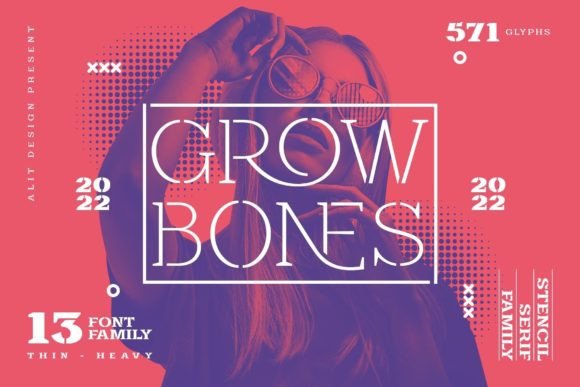
Ignite your designs with Grow Bones, the ultimate sport display stencil font, meticulously crafted by Alit Design. This captivating serif typeface embodies energy, dynamism, and a hint of rebellion. Its unique, irregular shapes dance across the page, demanding attention and leaving an indelible mark on your creative projects.
Picture the impact of Grow Bones in your sports-themed designs, where the bold strokes and edgy aesthetic add an adrenaline rush to every word. Create posters that energize, logos that electrify, and branding that resonates with a youthful, adventurous spirit. Harness the power of Grow Bones to elevate your designs to new heights, capturing the essence of movement and competition.
Beyond the realm of sports, Grow Bones shines as a versatile performer in a wide spectrum of creative endeavors. Its strong, modern style lends itself seamlessly to contemporary branding projects, where a bold statement is paramount. Employ Grow Bones to craft striking headlines, captivating social media posts, or eye-catching packaging that exudes confidence and sophistication.
The beauty of Grow Bones lies in its adaptability. Whether you're a seasoned designer or just starting your creative journey, this font welcomes you with open arms. Its user-friendly nature makes it a joy to work with, both in design and non-design programs. Embrace the simplicity of Grow Bones and let your creativity flow effortlessly.
Unlock the boundless potential of Grow Bones today and unleash the full power of your imagination. Say goodbye to bland, uninspired fonts and embrace a world of endless creative possibilities. With Grow Bones by your side, you'll leave an unforgettable mark on every project you undertake.